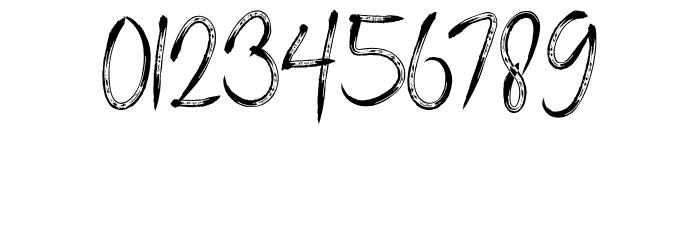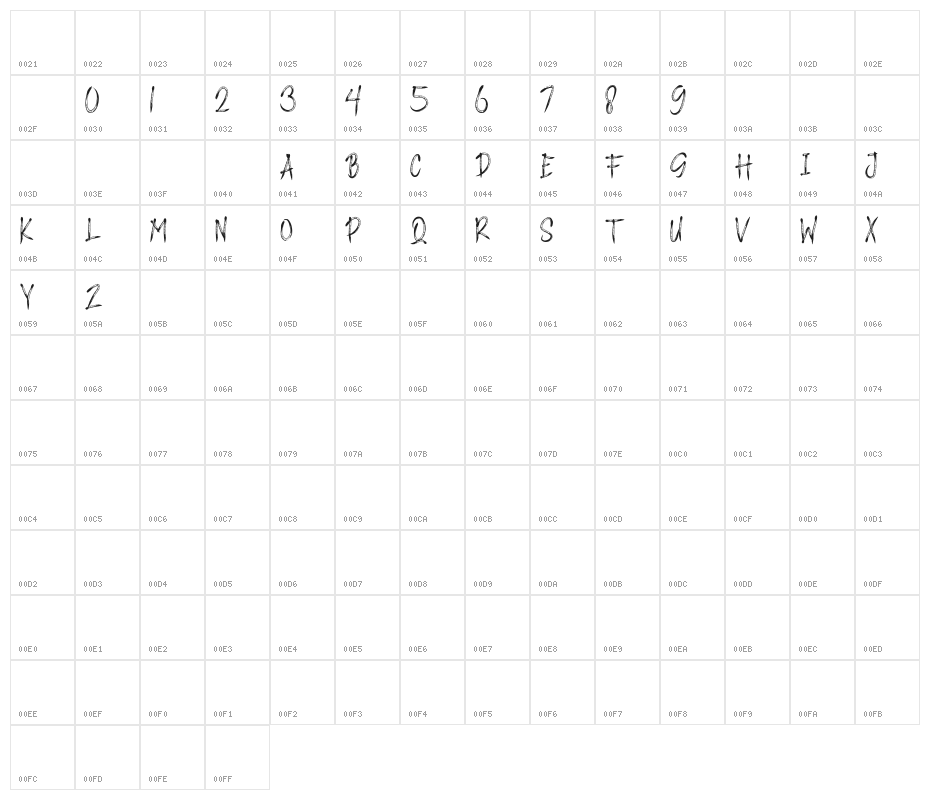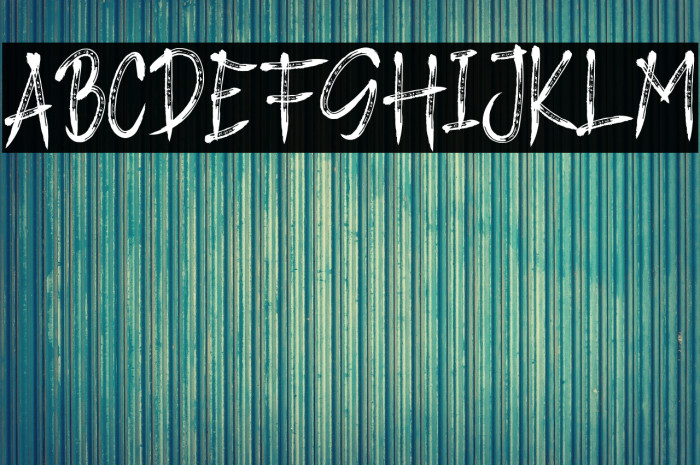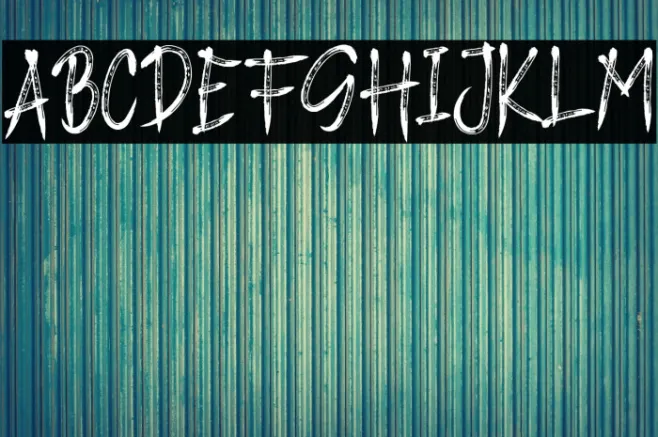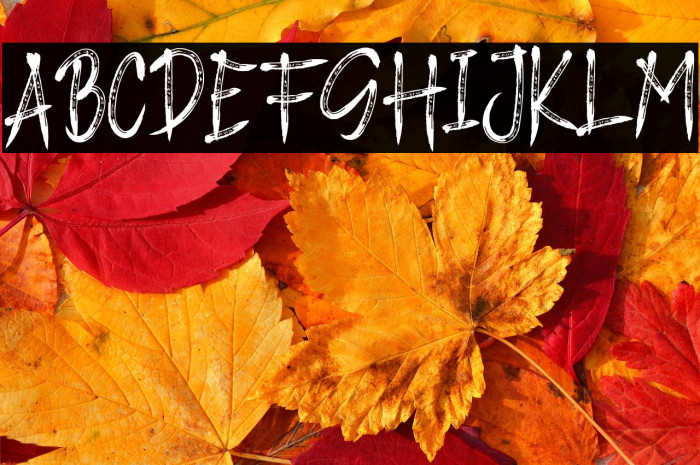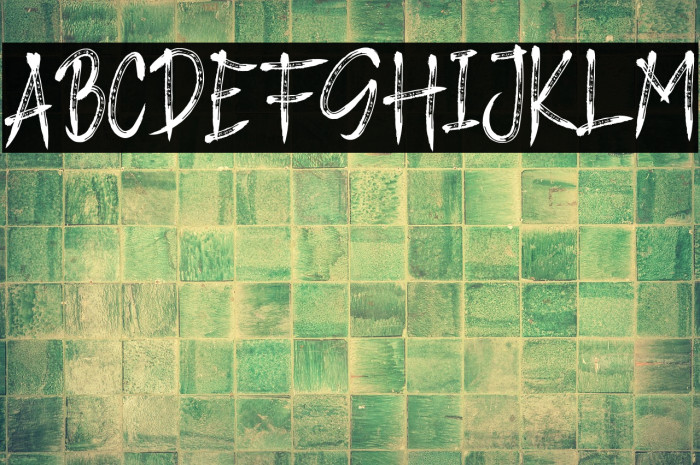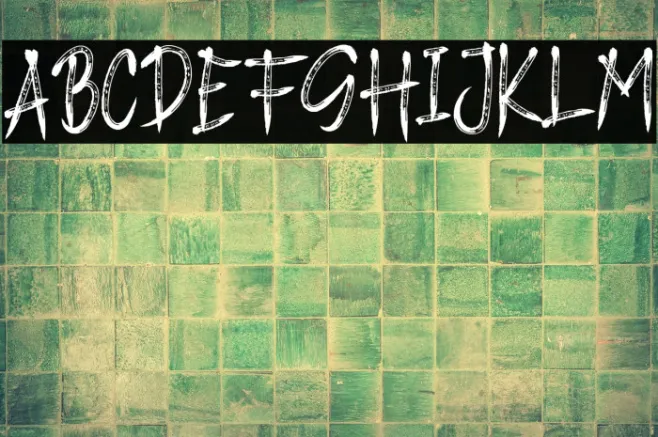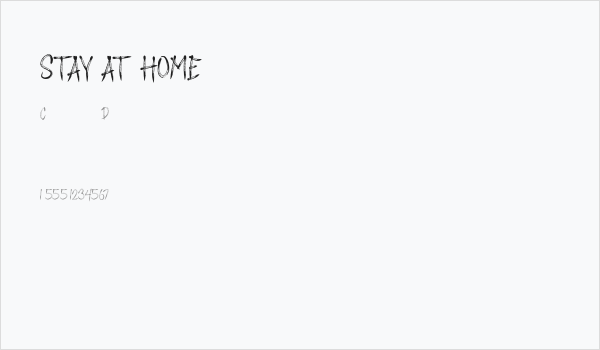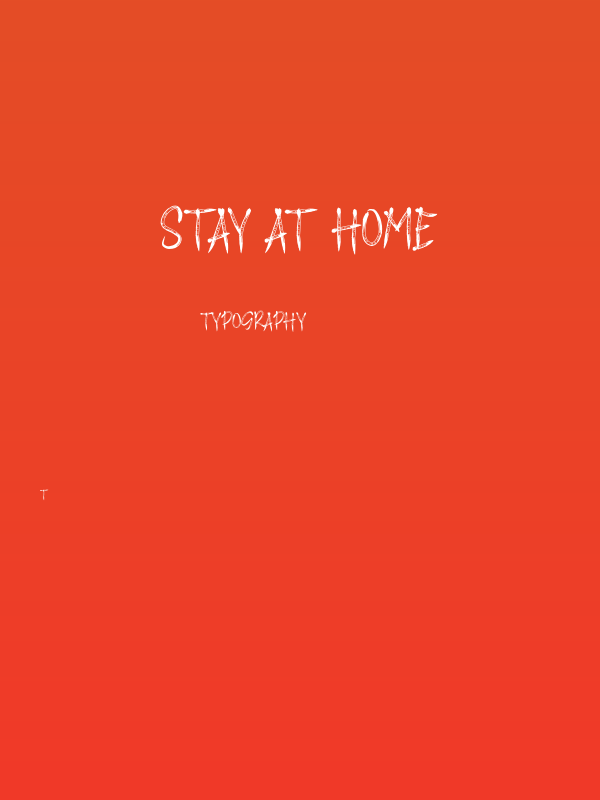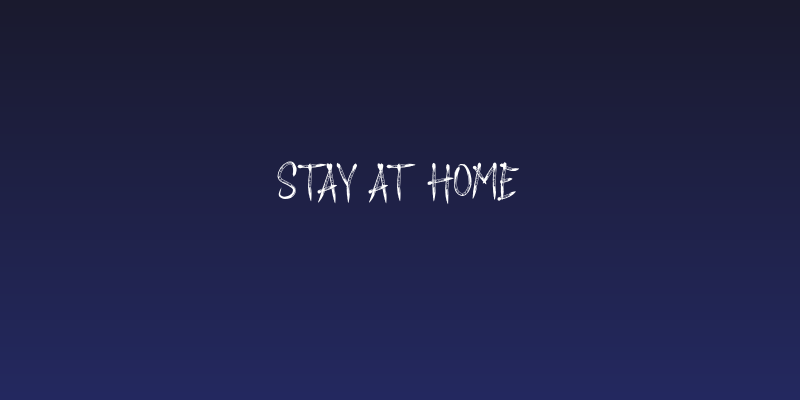
STAY AT HOME Font
STAY AT HOME Description
This font features a dynamic and energetic style, characterized by its bold, brush-like strokes that convey a sense of movement and creativity. The letters are slightly irregular, adding a handcrafted feel that is both modern and artistic. The uppercase letters are prominent and expressive, while the numbers maintain the same lively aesthetic. This font is perfect for projects that require a personal touch, such as invitations, posters, or branding materials that aim to stand out with a unique flair.
| Proposed Projects | Ideal for creative projects like posters, invitations, and unique branding materials. |